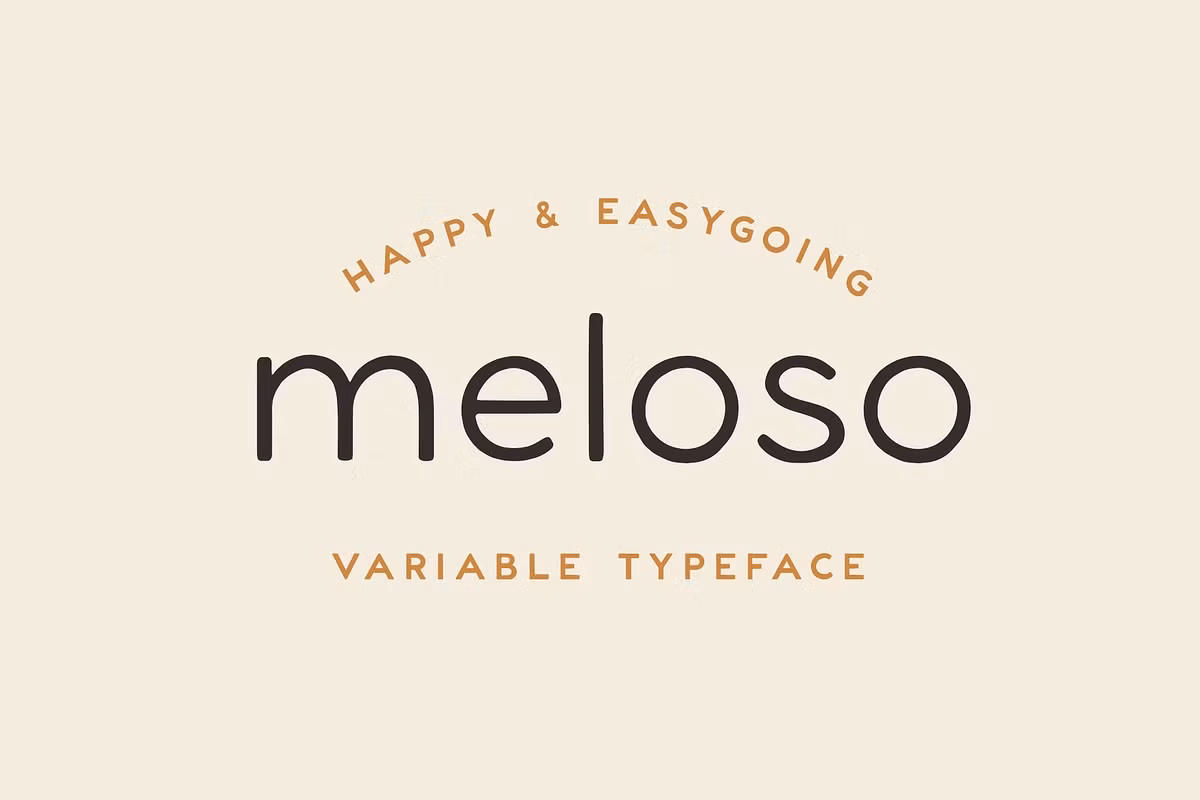
Meloso Variable Hand Drawn Typeface Free Download
The Meloso Variable Hand Drawn Typeface Free Download is a unique, playful, and versatile typeface that combines the charm of hand-drawn design with the flexibility of variable font technology. Perfect for creative projects, logos, branding, posters, and social media graphics, this font adds a personal, handcrafted touch to your designs.
With its dynamic and adjustable weight options, Meloso allows you to customize the font to suit your specific design needs, offering both bold and subtle variations. It includes uppercase and lowercase letters, numbers, punctuation, and multilingual support, making it suitable for a wide range of applications.